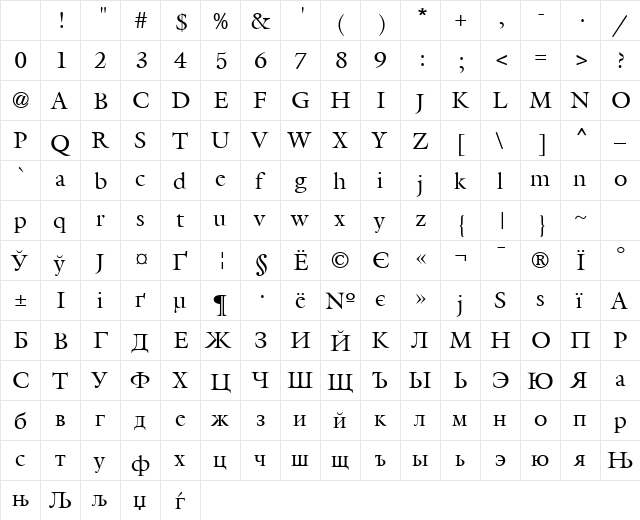
Complete AGGalleon Roman glyph index. Displaying only characters natively supported by AGGalleon Roman font.
AGGalleon is a composed and adaptable typeface that performs quietly and consistently across a wide range of design contexts.